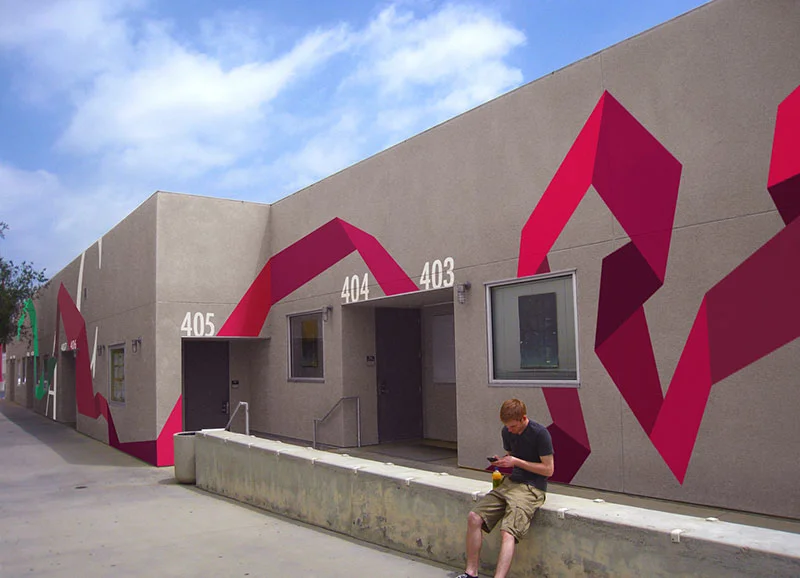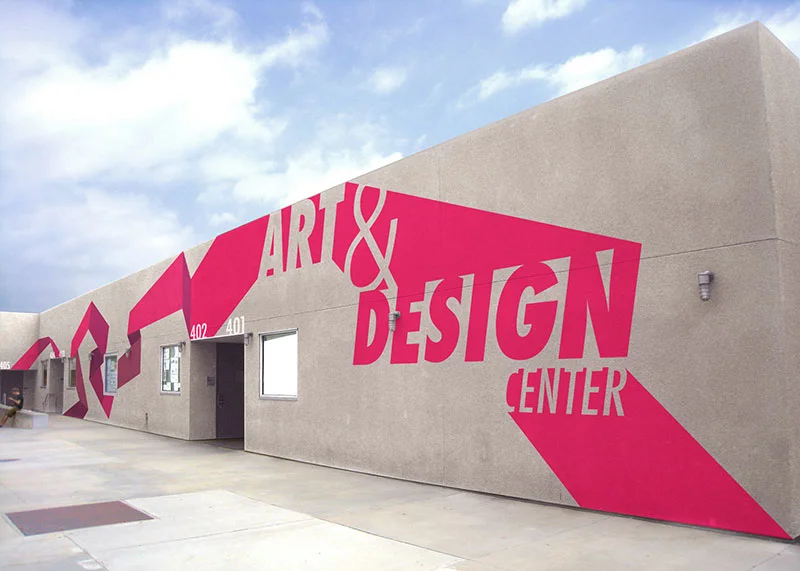
Kittaya is a 23-year old student at Cal State University Northridge who was born in Bangkok, Thailand. She always enjoyed rearranging stuff in her head, like repositioning type and images on a billboard; and when she moved to America when she was 13, she learned that people could actually make a living doing just that. After taking her first graphic design class at a community college, she started cultivating her passion for design. We saw her type work at play in Kittaya's conceptual project and just had to ask her about her inspiration.
How did this concept come about? What research did you do and how did the buildings influence your design?
This was my final project for an advanced typography class. The challenge was to redesign the exterior of the CSUN Art and Design Center building to establish an identity for the place and to make finding classrooms easier by creating a new wayfinding system. Having been my first environmental design project, I looked at a lot of wayfinding examples in my research, and was most inspired by ones whose graphic treatment played along with the construction’s shape and form. Since this building held classes for various art courses such as illustration and motion graphics, I then tried to incorporate those aspects into the configuration as well.
I love the kinetic movement across the building's facade. What what your overall inspiration for the project?
I was getting into motion graphics and animation at the time so when this project was assigned I was inspired to create movement throughout the whole scene. The idea behind weaving the letterforms into the graphics was to unite the two components and to add depth to the flat surface. I chose Futura and Baskerville because I thought they would fit the modern feel of the overall design and alter the former conservative look of the building.